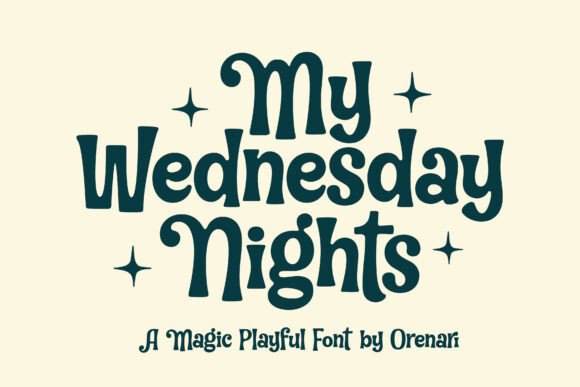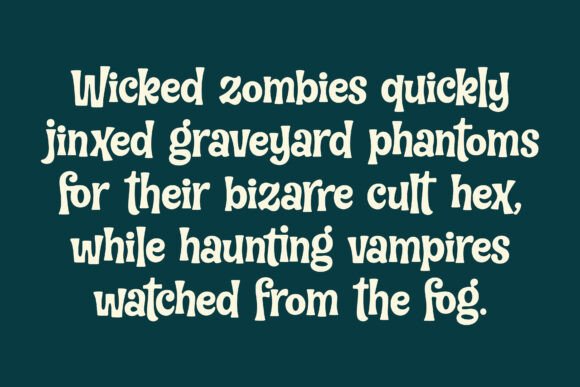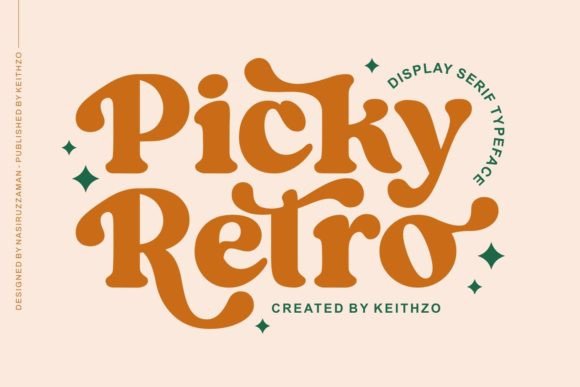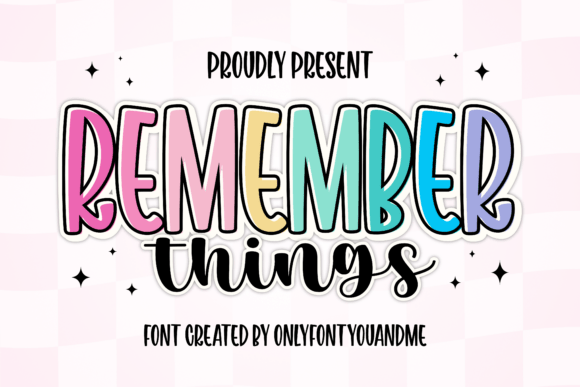
From Gritty Typewriter to Groovy Retro: 10 Must-Have Display Fonts
When a standard typeface just isn’t enough, display fonts step in to give your work the extra «pop» it needs to truly stand out! Unlike traditional fonts that strive for conventional aesthetic beauty, these unique typefaces prioritize character and high-impact readability. They are the ultimate secret weapon for creating eye-catching posters, viral-ready blog headers, and standout craft projects.
In this curated collection, we are diving into the incredible versatility of display typography. Whether you are looking for the raw, «ink-stained» grit of a vintage typewriter or the bubbly, sunshine-filled energy of the 70s, these 10 picks from Creative Fabrica will help you command attention. Every font in this list is selected to help your projects bridge the gap between «good design» and «unforgettable branding.»
Let’s explore the best display fonts to elevate your creative toolkit!
1. Picky Retro Display Font
Picky Retro Font
If you’re looking for a typeface that practically jumps off the screen with personality, Picky Retro is your best bet. It’s a bold, charismatic Display Serif Font that perfectly captures that «vintage flair» everyone is chasing right now. Its letterforms are thick, curvy, and full of playful nostalgia, making it an absolute magnet for attention on platforms like Pinterest.
What makes Picky Retro a powerhouse for creators is its ability to balance classic elegance with a fun, retro vibe. It’s a «stop-the-scroll» font, ideal for:
• Standout Headlines that need a strong voice.
• Logo Design with a hint of 70s soul.
• Captivating Invitations and social media graphics.
If your project demands a timeless charm that refuses to be ignored, this font is a must-have in your Creative Fabrica collection.
2. Super Retro Display Font
Super Retro Font
If you want to break away from «perfect» typography and embrace something with real soul, Super Retro is exactly what your Pinterest boards need. This is a delightfully «unbalanced» Display Font that prioritizes character over symmetry. Its irregular lines and uneven letter heights create a dynamic, energetic rhythm that feels alive and edgy—making it the ultimate choice for posters, indie album covers, or high-end streetwear branding.
What really makes this a «Creative Fabrica gem» is that it is PUA encoded. This is a huge selling point for your audience because it means they can access all those gorgeous glyphs and extra swashes effortlessly, even without professional design software. It’s a bold, unique statement piece that adds an authentic vintage grit to any project.
3. My Wednesday Night Display Font
My Wednesday Night Font
If you are looking to add a «quirky horror vibe» to your designs, My Wednesday Night by Orenari is the perfect blend of magic and mischief. This playful font features bold strokes and whimsical curves that lean into a slightly eerie, mysterious aesthetic. It is an absolute standout for Halloween-themed projects, spooky event invitations, or even whimsical children’s book titles that need a touch of «playful mystery.»
Like many top-tier Creative Fabrica finds, this font is PUA-encoded, giving you effortless access to all its delightful glyphs, swashes, and alternate characters. Whether you are crafting posters or social media graphics, this typeface allows you to customize your creations with a unique, spooky-fun personality that is sure to get saved and shared on Pinterest.
4. Varsity Spirit Font
Varsity Spirit Font
If you need to capture that classic collegiate energy, Varsity Spirit is the definitive choice. This bold, athletic Display Font is designed for high-impact sports branding and school spirit projects. Its strong, blocky letterforms evoke the timeless look of university jerseys and team logos, making it an essential tool for anyone working on athletic-themed designs.
One of the biggest selling points for your audience on Creative Fabrica is the sheer versatility of the file formats included. Varsity Spirit isn’t just a font; it’s a complete design toolkit featuring:
Whether you are creating custom jerseys, team monograms, or spirit-wear for a local school, this typeface provides a professional, «official» look that is guaranteed to stand out on any physical or digital product.
5. Remember Things Display Font
Remember Things Font
If you’re looking for a double dose of personality, the Remember Things font duo is a total game-changer. This pairing is a masterclass in balance, combining a tall, bold Display Font with a casual, brush-like script. The display version features playful proportions and smooth curves, while its built-in outline layer creates a trendy, sticker-like effect that is absolutely perfect for the current aesthetic.